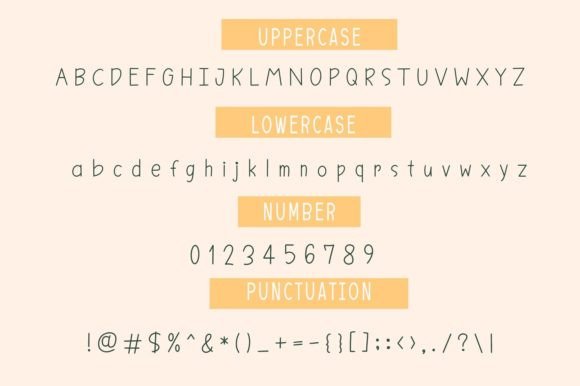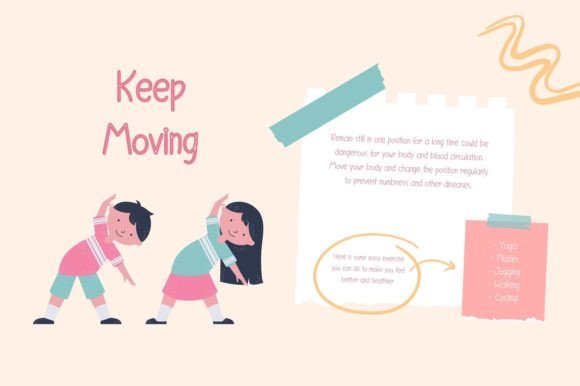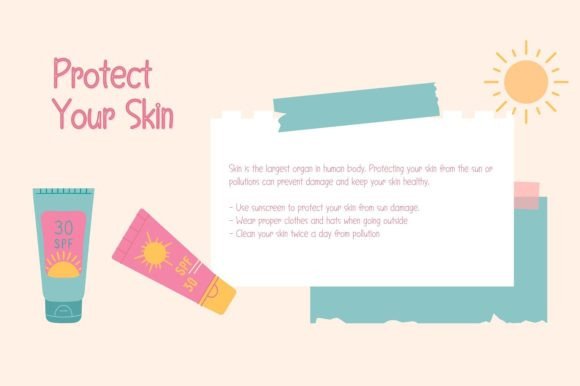
About Mackenzie Font
Mackenzie is a cute and fun handwritten font. The lightness of its characters makes it suitable for a wide range of design projects. It embodies playfulness and authenticity and is the perfect choice for all your favorite projects.